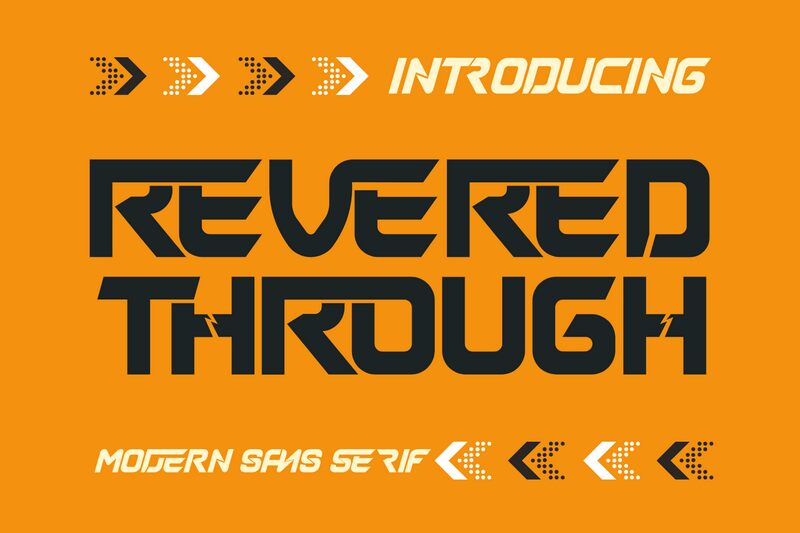
Revered Through font family by 177Studio is a techno typeface with futuristic angles to satisfy even the picky types. The free font family contains geometrically-built characters that align with a modern and dynamic context. Sleek, energetic, and impactful, it was developed with key elements that connect to the digital future we look forward to.
The typeface family is suitable for logotype design. It can elegantly garment packaging designs, application user interface and review, as well as branding design and posters. Not only that, but it works for print and digital newspaper designs, magazines, and flyers.